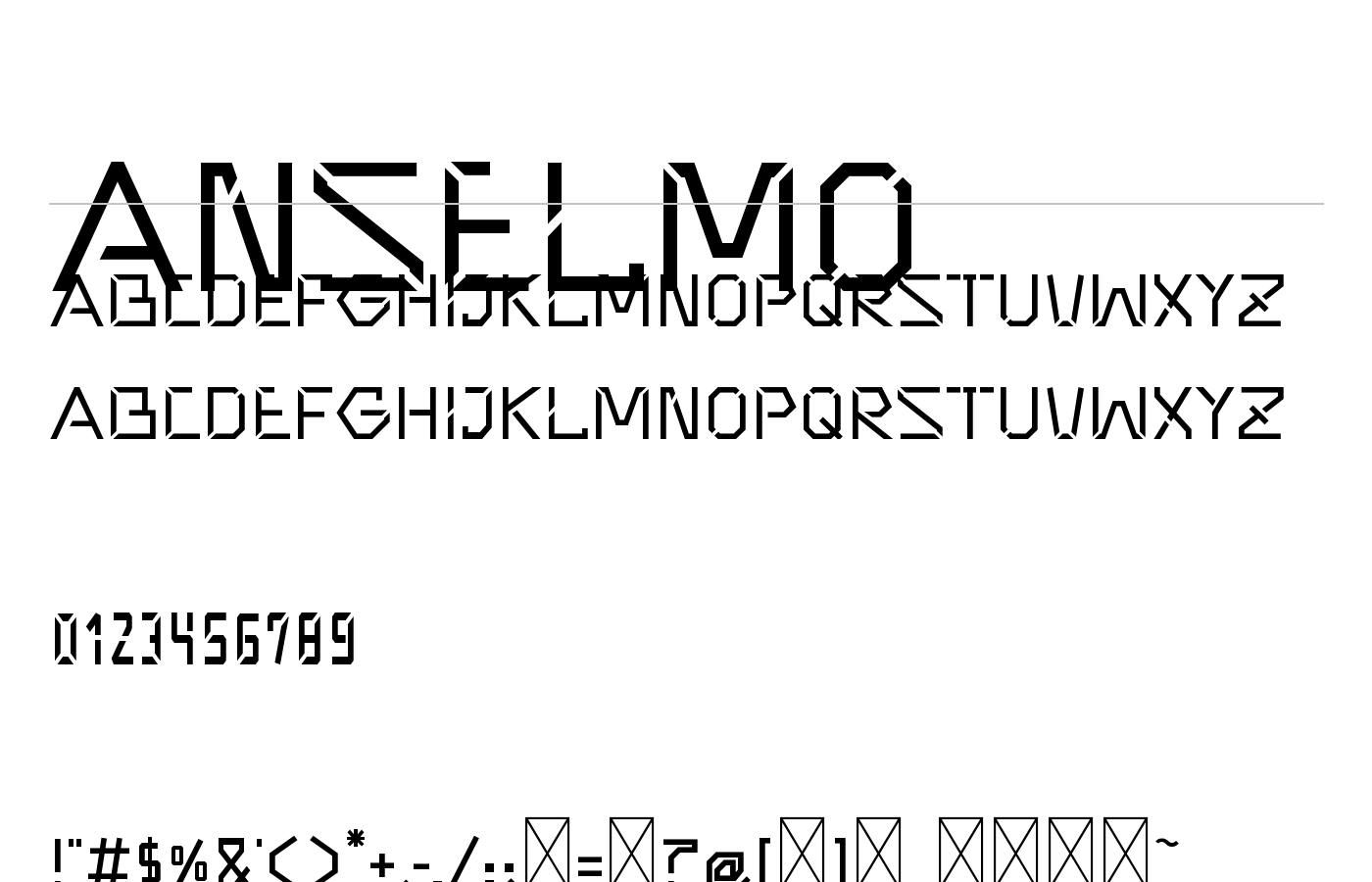
Anselmo is a futuristic, geometric sans serif font with a condensed width and a striking, angular design. Its sharp, faceted strokes and uniform weight create a modern, tech-inspired aesthetic that works well for bold headlines, logos, and branding projects seeking a cutting-edge, innovative vibe. This distinctive font shines in display uses where its unique character shapes can capture attention and convey a sense of precision and modernity.
Anselmo Font
About Anselmo Font